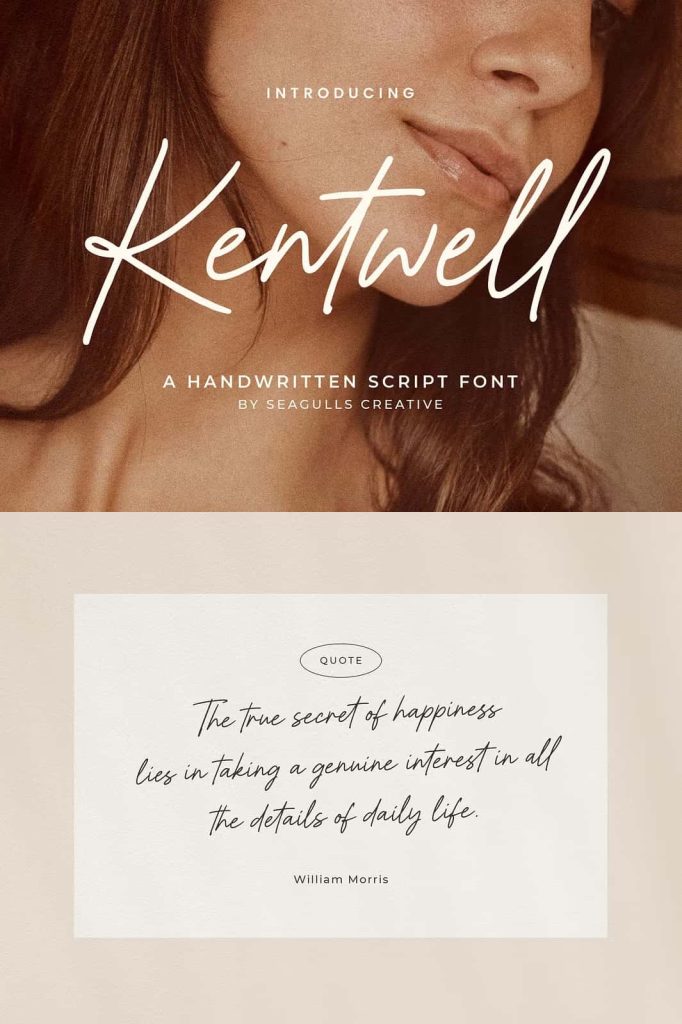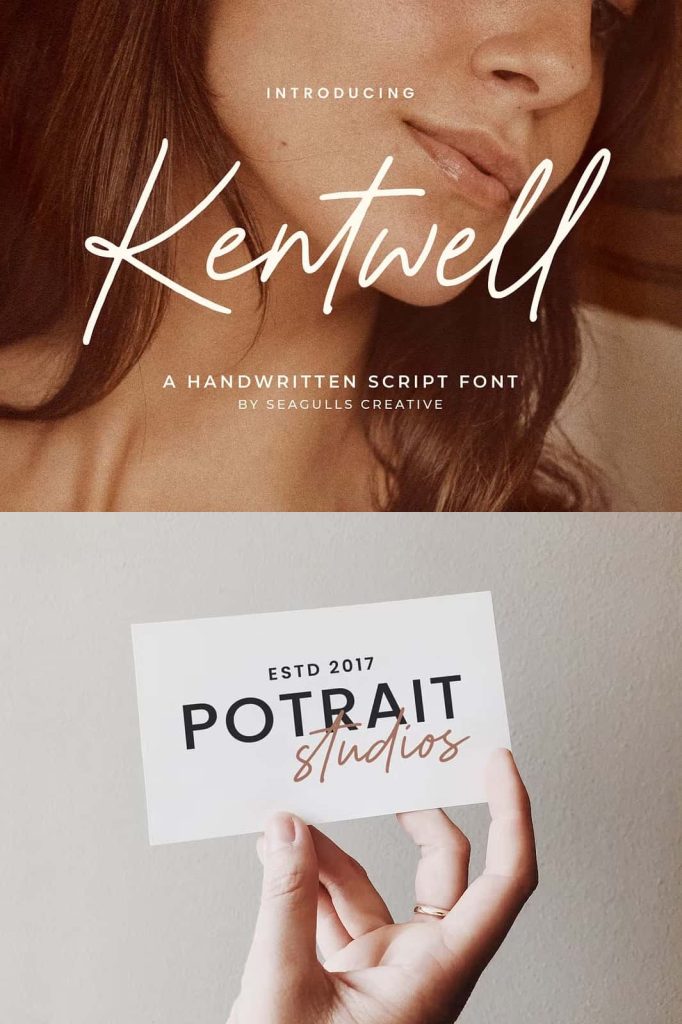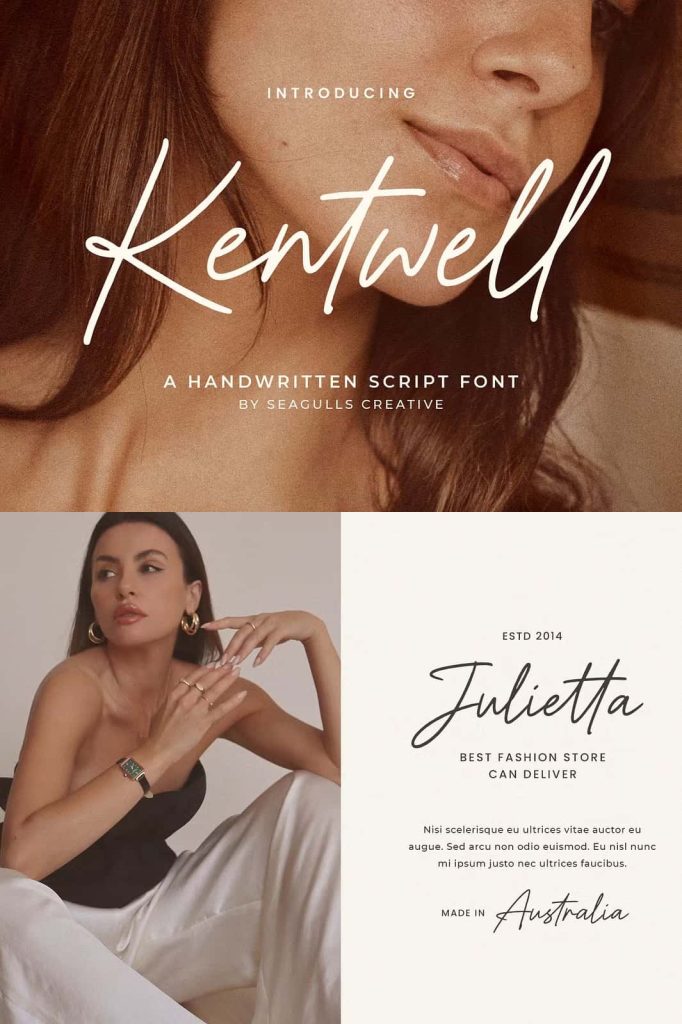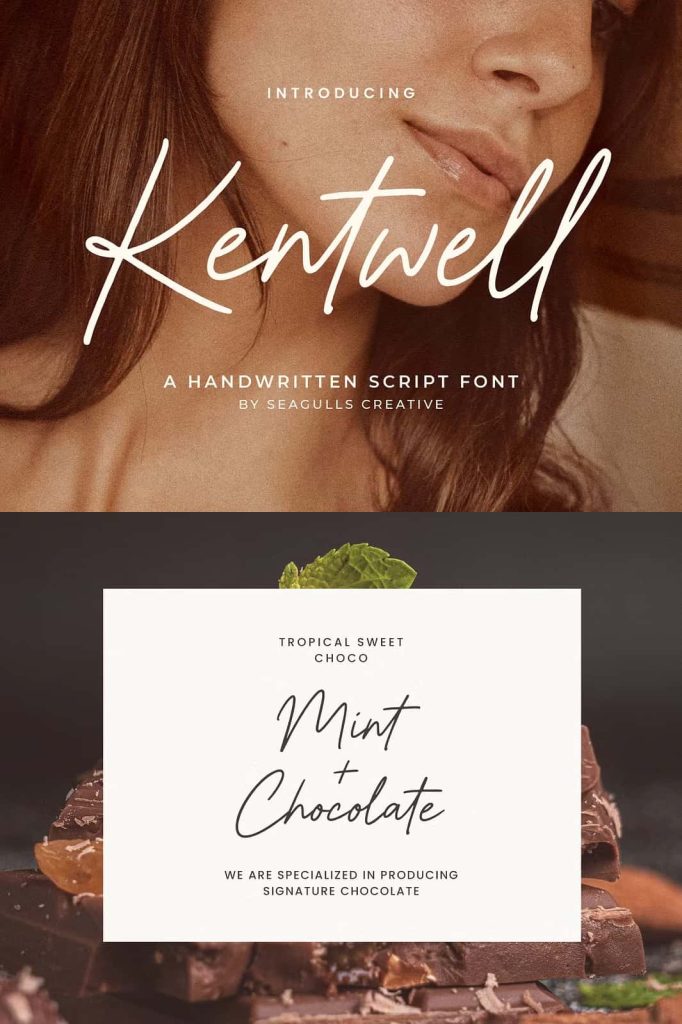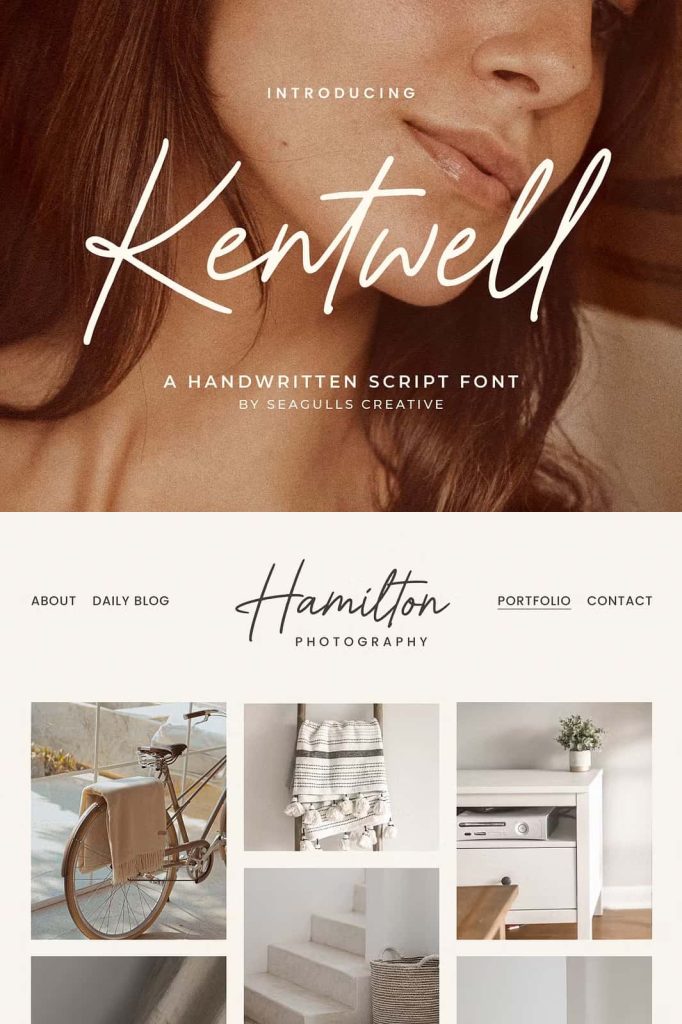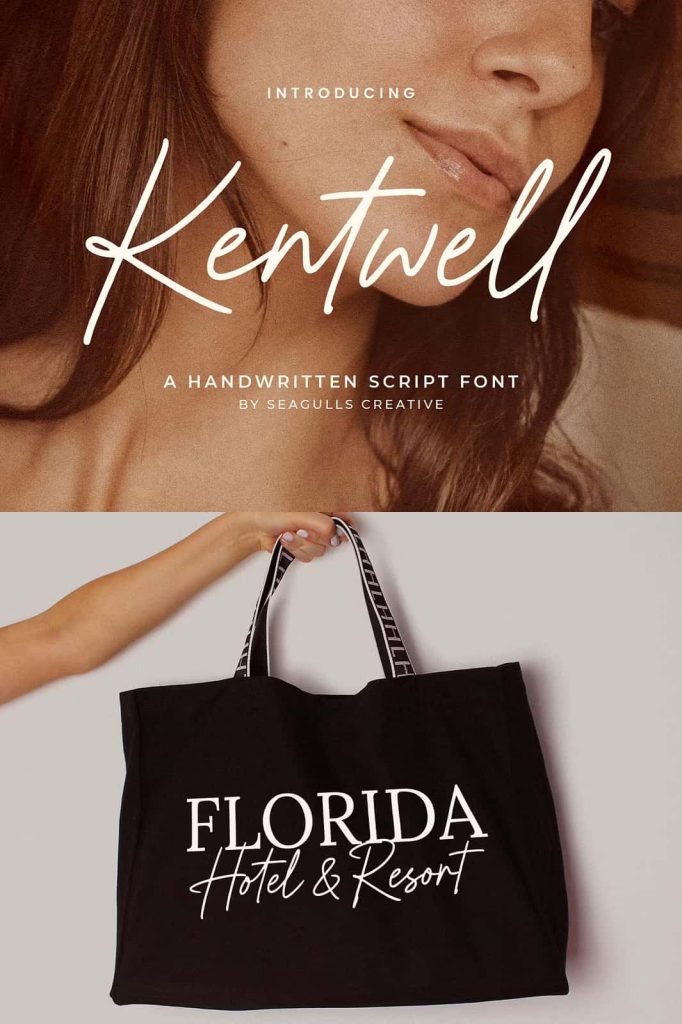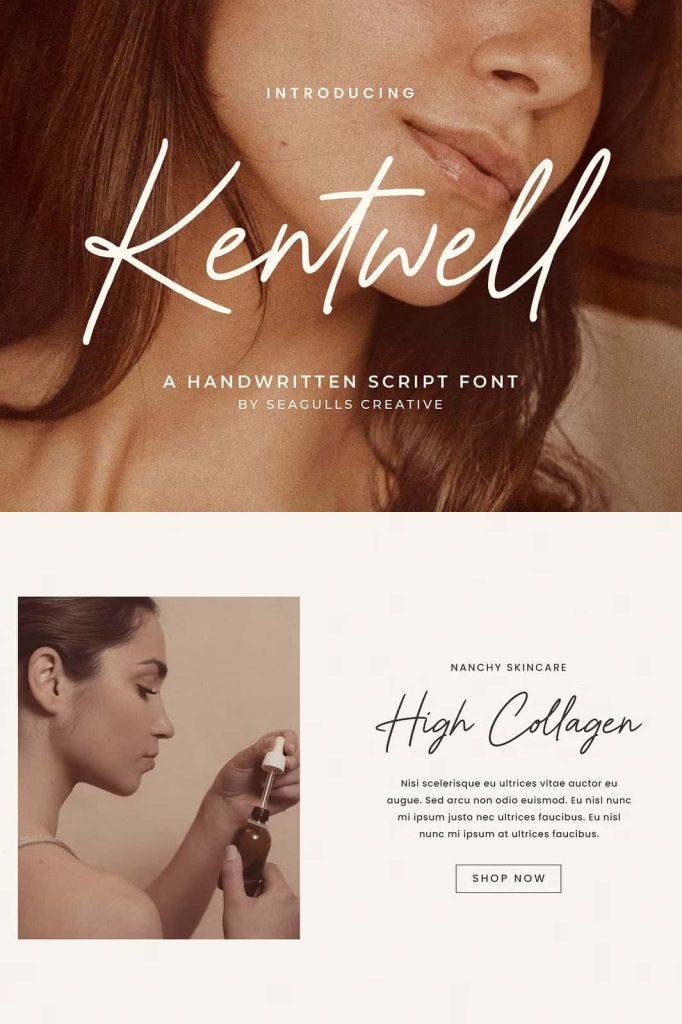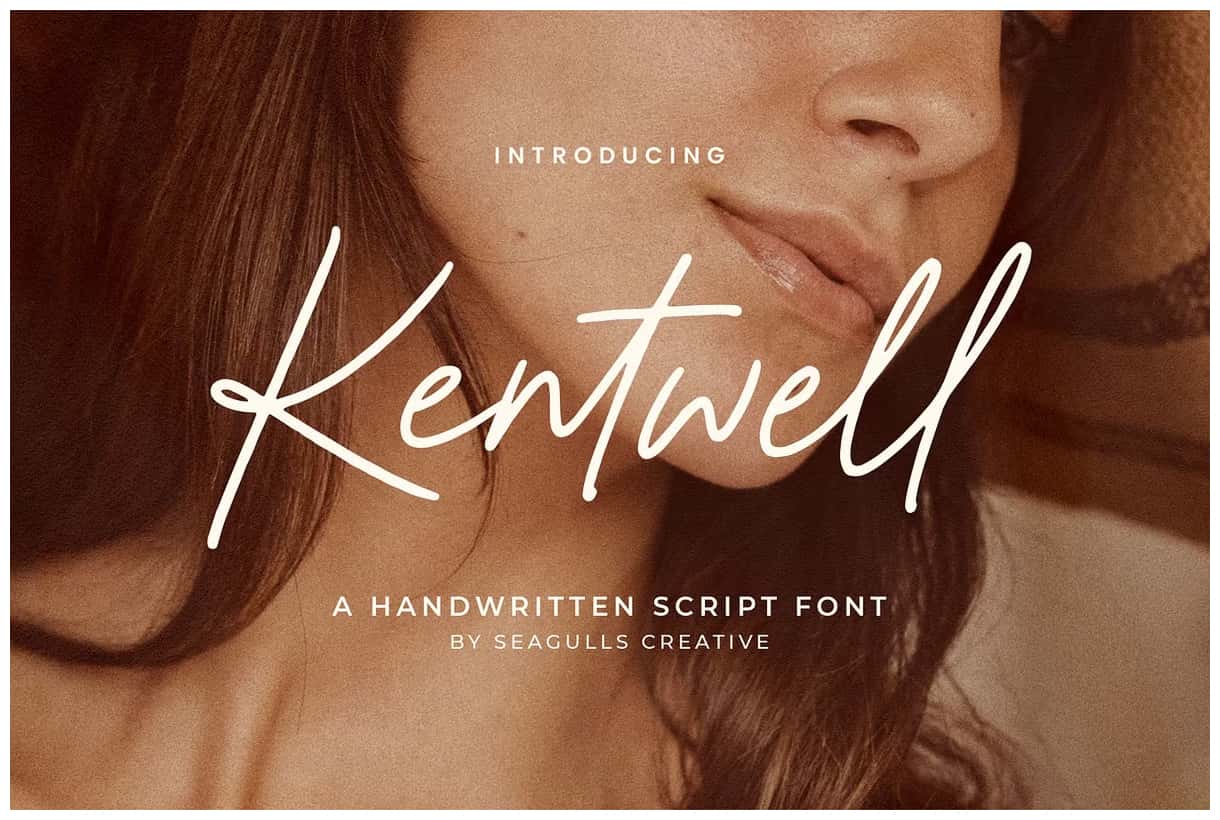
Kentwell: A Modern and Stylish Handwritten Font for Creative Design
Kentwell is a modern and stylish handwritten font created to bring personality, warmth, and elegance into your designs. Inspired by natural handwriting with a refined contemporary feel, Kentwell delivers smooth strokes, balanced proportions, and a confident rhythm that feels both personal and professional. This font is carefully crafted to help designers communicate authenticity while maintaining a polished visual identity.
Unlike generic script fonts, Kentwell captures the natural flow of handwriting while remaining highly readable. Every letter is designed to connect effortlessly, allowing your text to feel fluid and expressive. Whether you are working on a digital project or a printed design, Kentwell adds a human touch that instantly makes your message more engaging.
Why Kentwell Stands Out as a Handwritten Font
Kentwell is not just decorative; it is functional and versatile. Its clean handwritten structure allows it to adapt to a wide range of creative needs. The font balances casual charm with modern style, making it suitable for both personal and commercial projects. This flexibility makes Kentwell a reliable choice for designers who want one handwritten font that works across multiple platforms.
Natural Handwritten Flow
The letterforms in Kentwell are designed to mimic real handwriting, creating a natural and organic appearance. Smooth curves and consistent stroke weight give the font a confident presence without feeling forced or artificial. This natural flow helps your text feel authentic, making it ideal for storytelling, branding, and personal messages.
Modern and Stylish Appearance
Kentwell maintains a modern aesthetic that fits perfectly with current design trends. It avoids overly decorative elements and focuses on clean, stylish shapes that feel fresh and relevant. This makes it especially effective for brands that want a handwritten look without appearing outdated or overly casual.
Versatile Uses for Kentwell Handwritten Font
Kentwell is designed to perform beautifully across a wide variety of design applications. Its readability and style allow it to shine in both short headlines and longer text elements. Designers can confidently use Kentwell in projects that require a personal, friendly, and stylish tone.
Branding and Logo Design
For branding projects, Kentwell adds character and originality. It works well for logos, brand signatures, and visual identities that want to feel approachable and authentic. The handwritten style helps brands build a stronger emotional connection with their audience while maintaining a professional appearance.
Invitations, Weddings, and Stationery
Kentwell is an excellent choice for wedding designs, invitations, greeting cards, and stationery. Its elegant handwritten style enhances romantic and celebratory themes, making each design feel personal and thoughtfully crafted. From save-the-date cards to event signage, Kentwell brings warmth and charm to every detail.
Photography, Social Media, and Advertising
In digital spaces, Kentwell performs exceptionally well. It stands out in social media posts, promotional graphics, and photography overlays by adding a handcrafted feel that draws attention. The font helps create visually engaging content that feels relatable and expressive, making it ideal for modern advertising and online branding.
Product Packaging and Product Design
Kentwell enhances product packaging by adding a human and creative touch. It works well for labels, tags, and packaging designs that want to communicate quality, care, and creativity. Whether used for handmade goods or modern lifestyle products, Kentwell helps products feel more personal and memorable.
A Handwritten Font Built for Creative Freedom
Kentwell gives designers the freedom to explore creative layouts without sacrificing readability. It pairs easily with sans-serif and serif fonts, allowing you to build balanced typographic systems. You can use Kentwell as a primary font for expressive headlines or as a secondary accent font to complement clean and minimal designs.
Because of its consistent style and smooth letter connections, Kentwell works well in both large and small sizes. This flexibility ensures that your designs remain clear and visually appealing across print and digital formats.
Why Choose Kentwell for Your Next Project
Choosing Kentwell means choosing a handwritten font that combines style, versatility, and authenticity. It helps your designs feel more human, more engaging, and more memorable. With its modern handwritten aesthetic, Kentwell supports a wide range of creative projects, from branding and packaging to invitations and social media content.
If you are looking for a modern handwritten font that delivers elegance, personality, and practical usability, Kentwell is a strong and reliable choice. It empowers designers to create meaningful visuals that connect with audiences and leave a lasting impression.